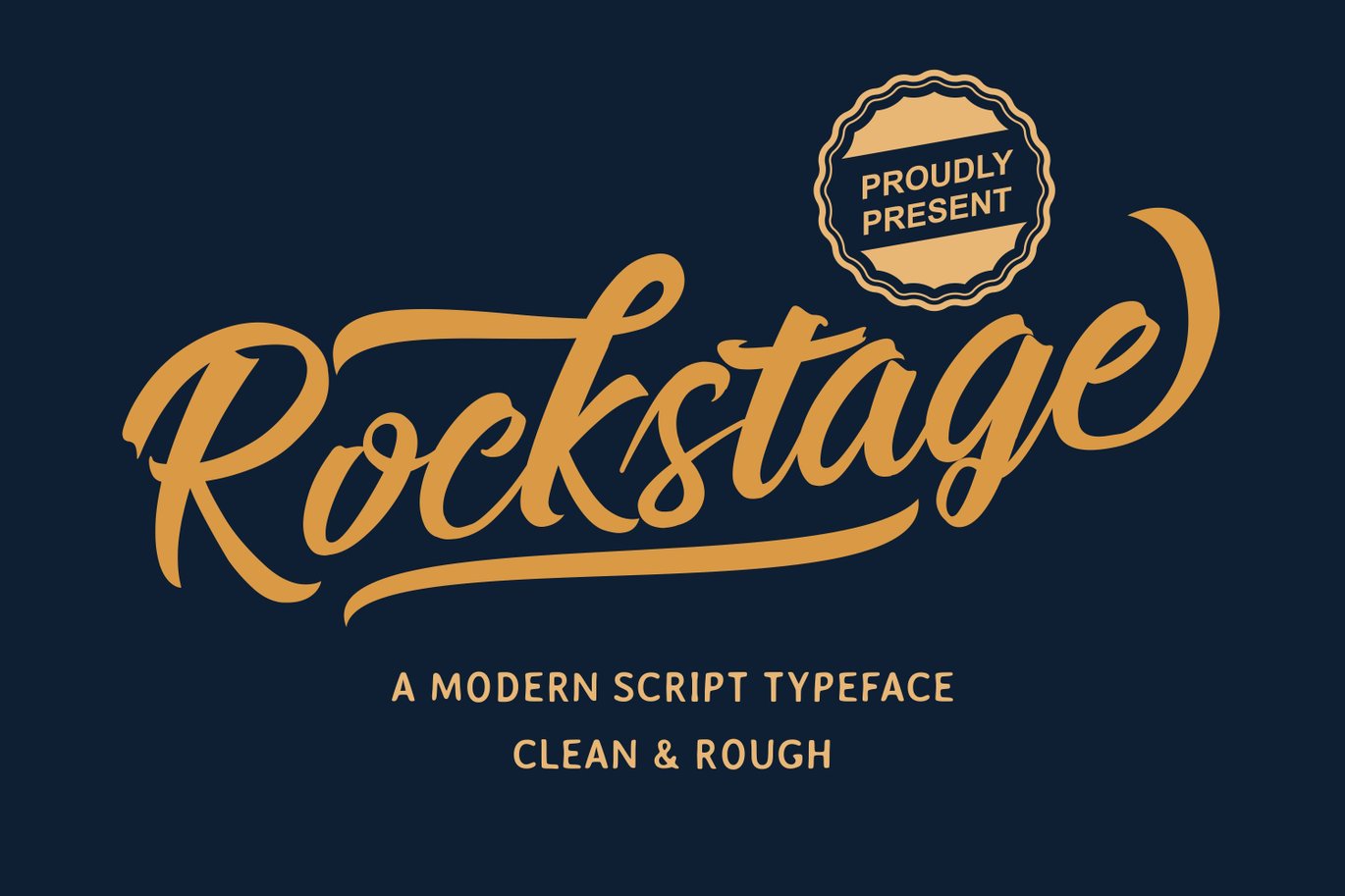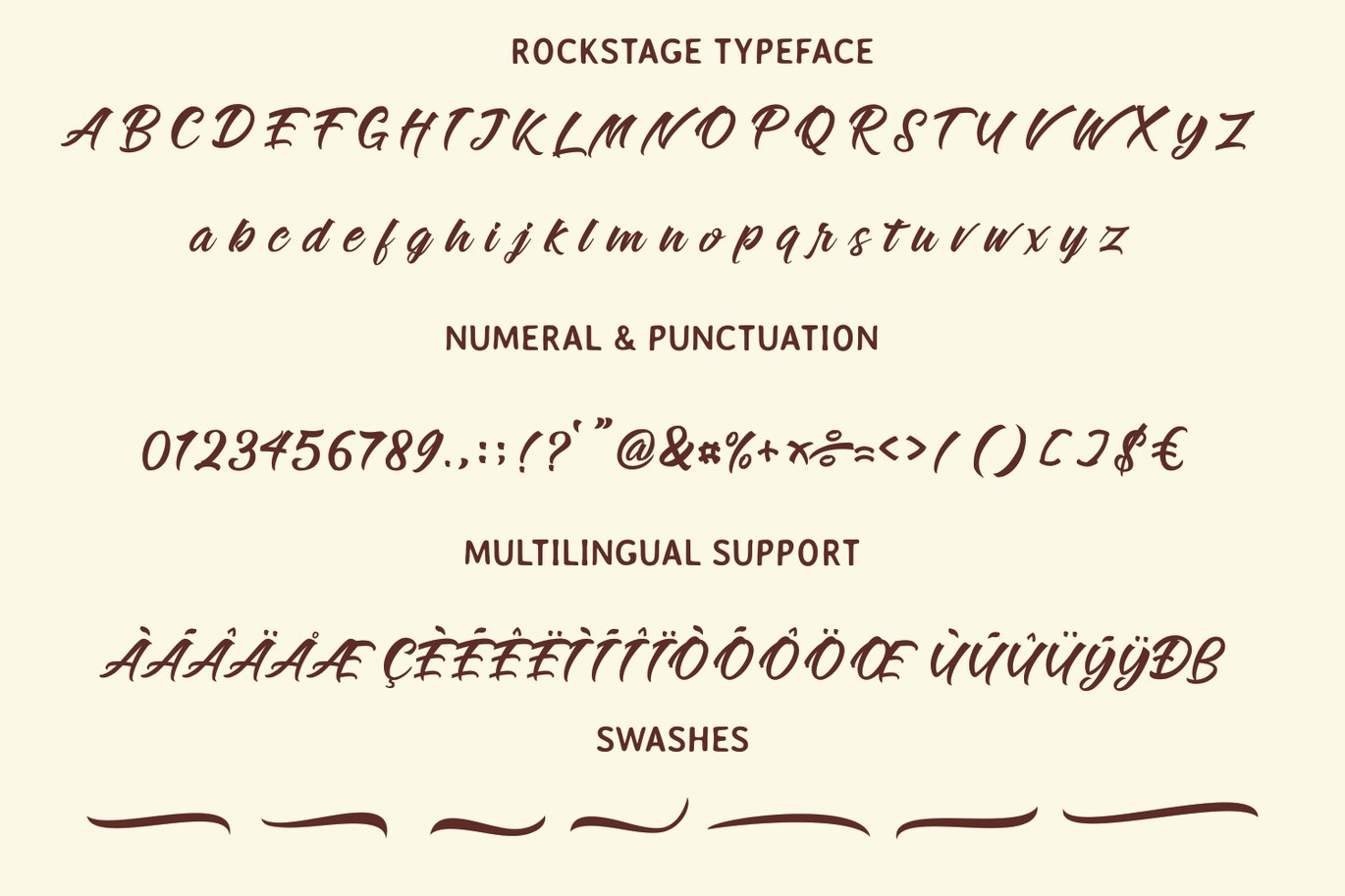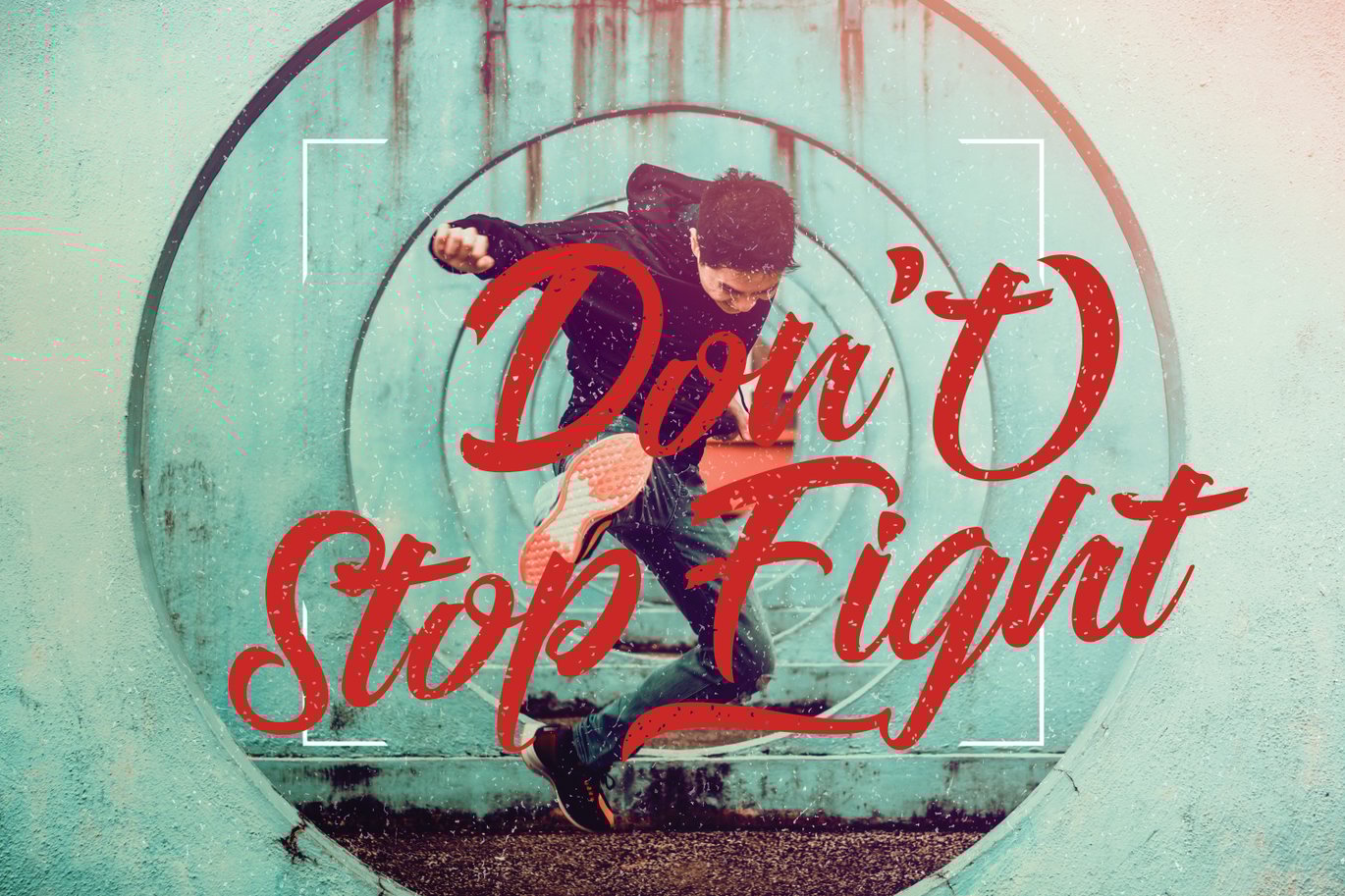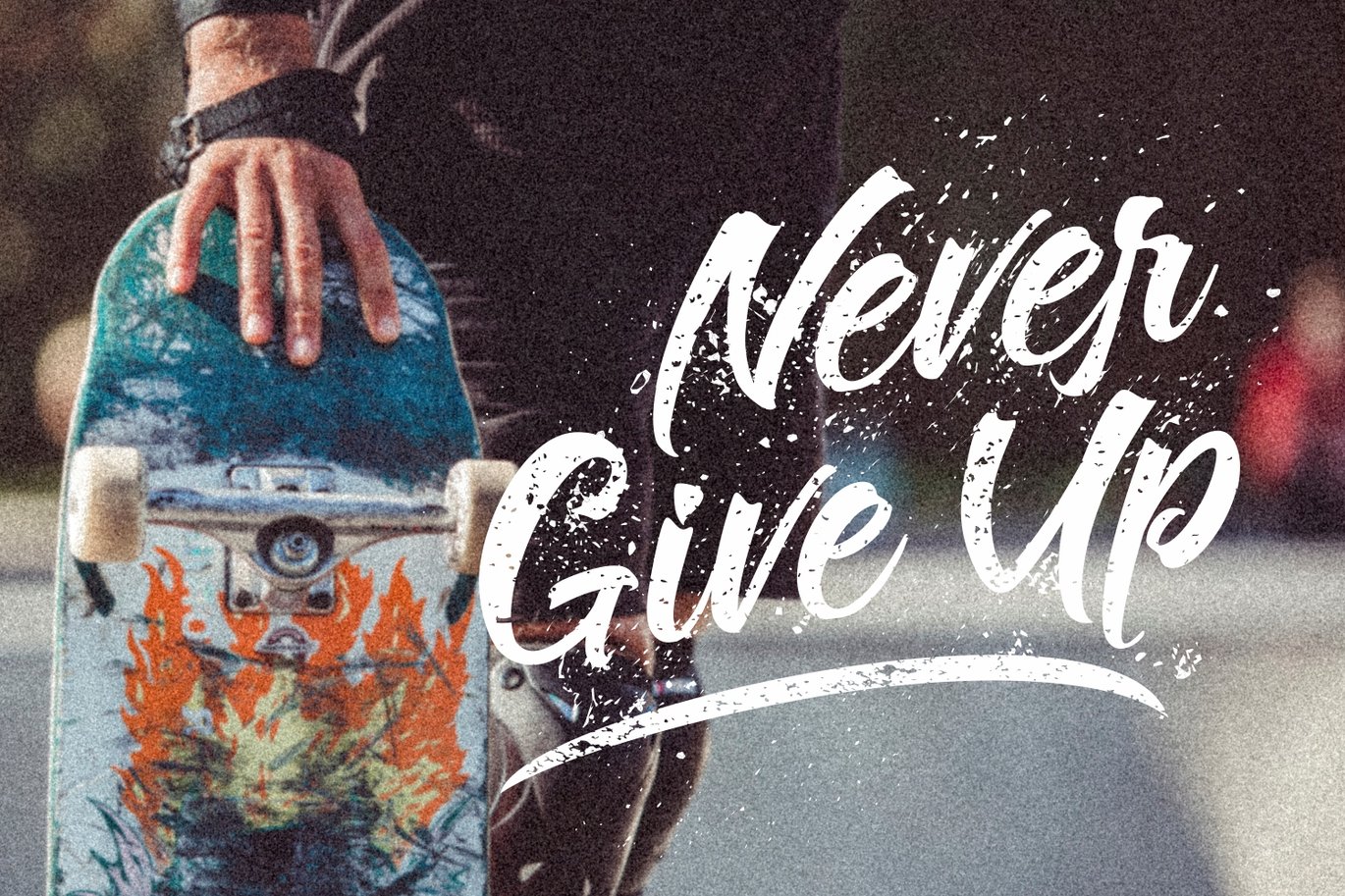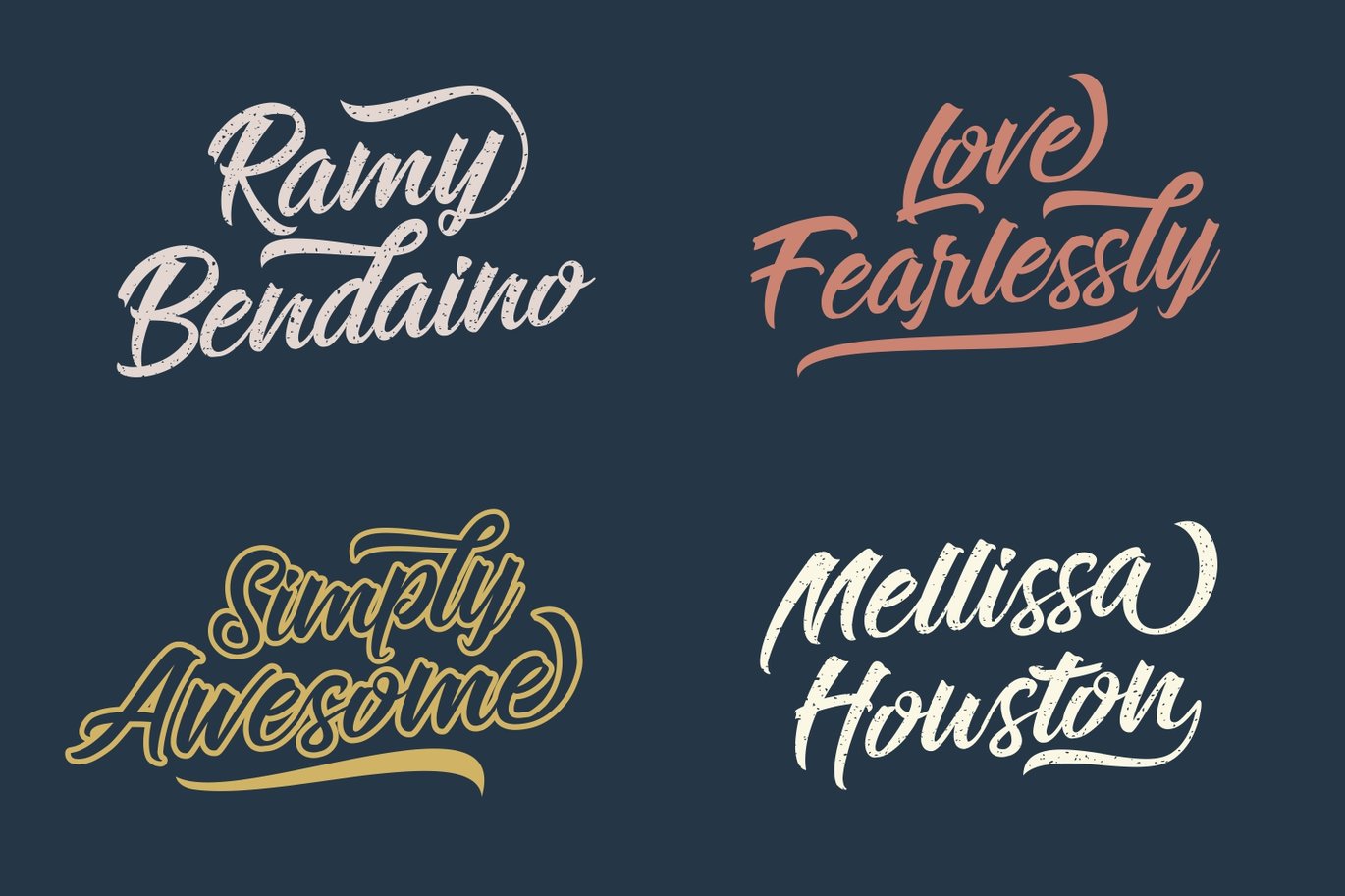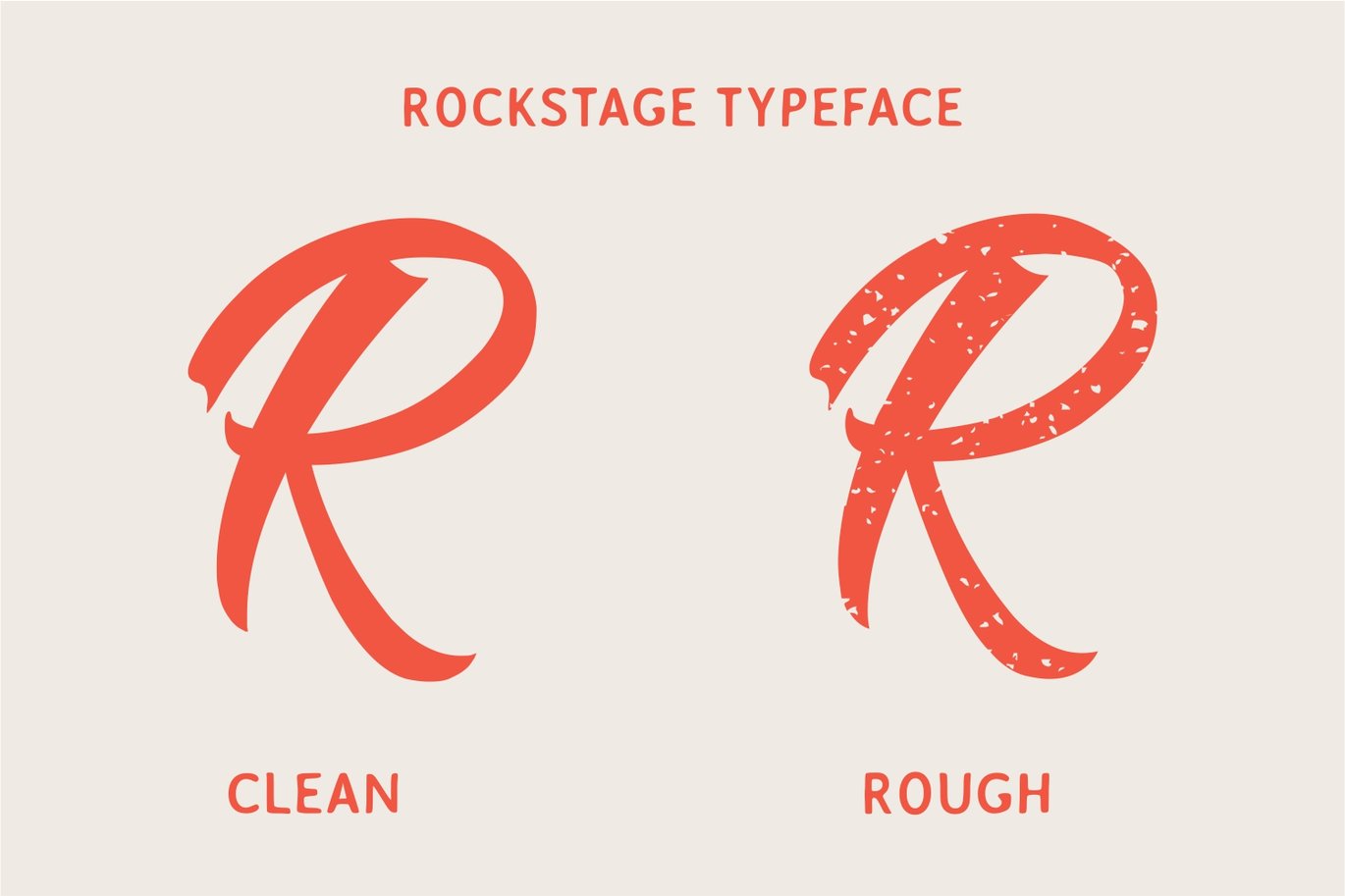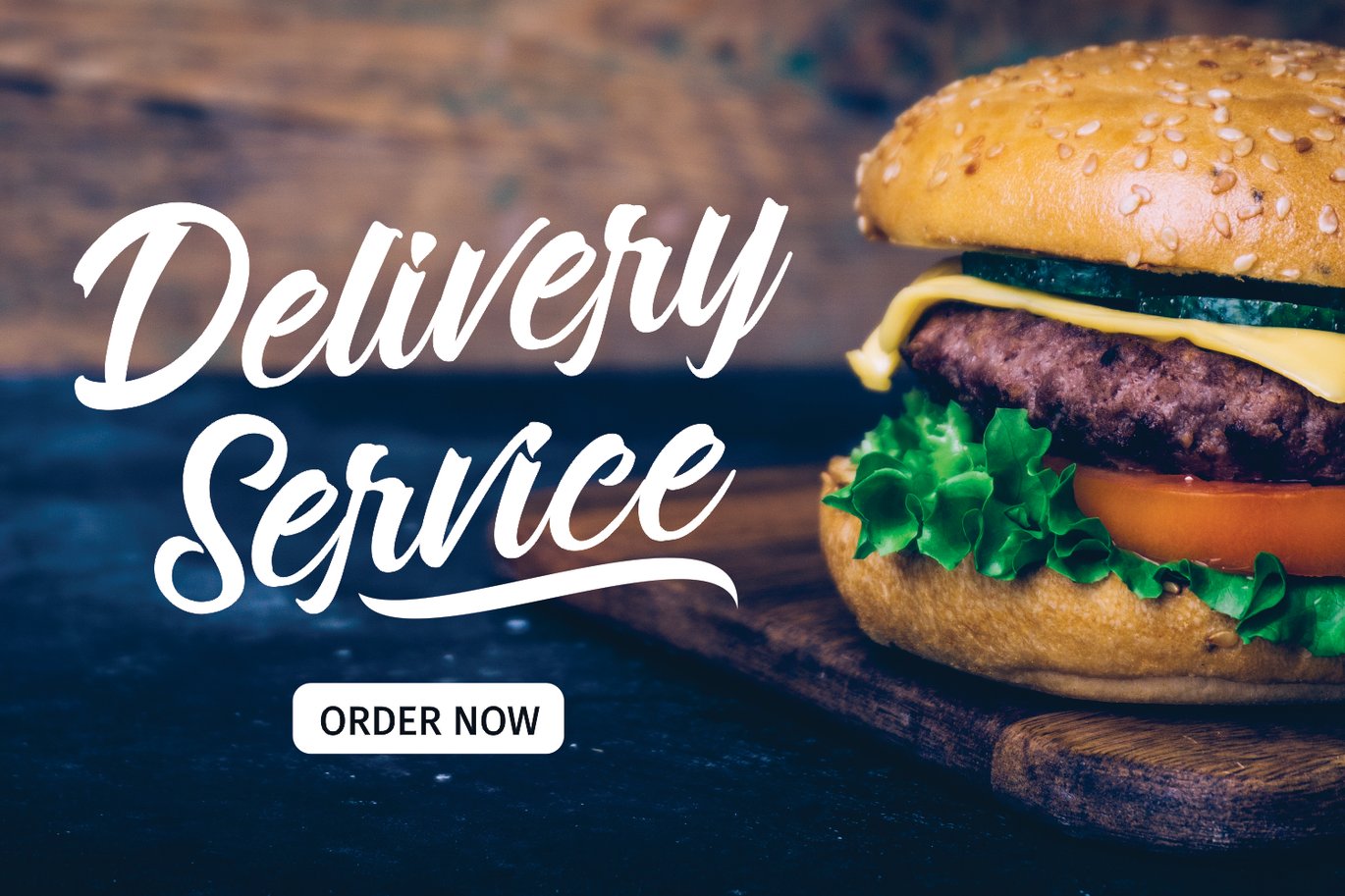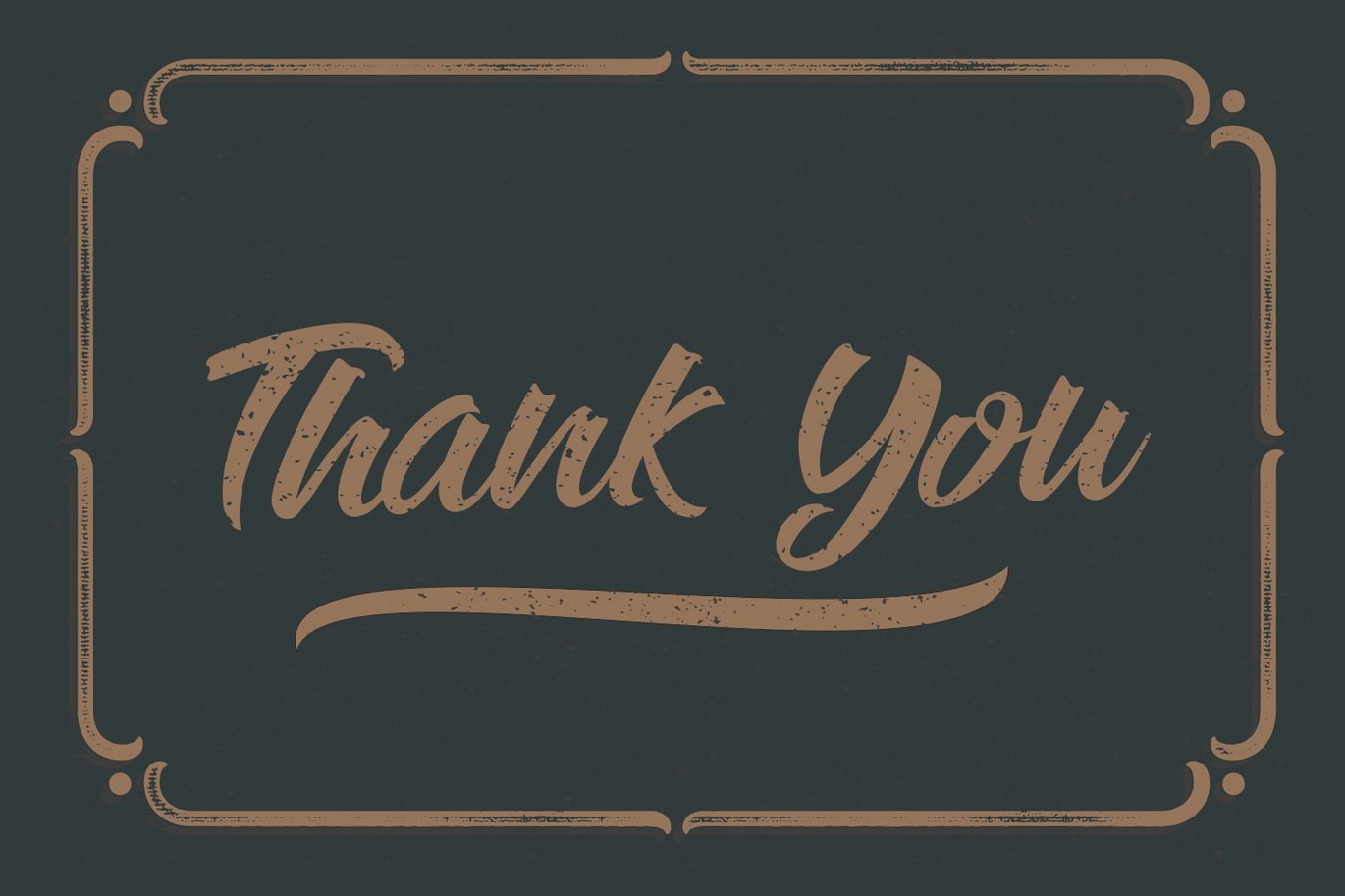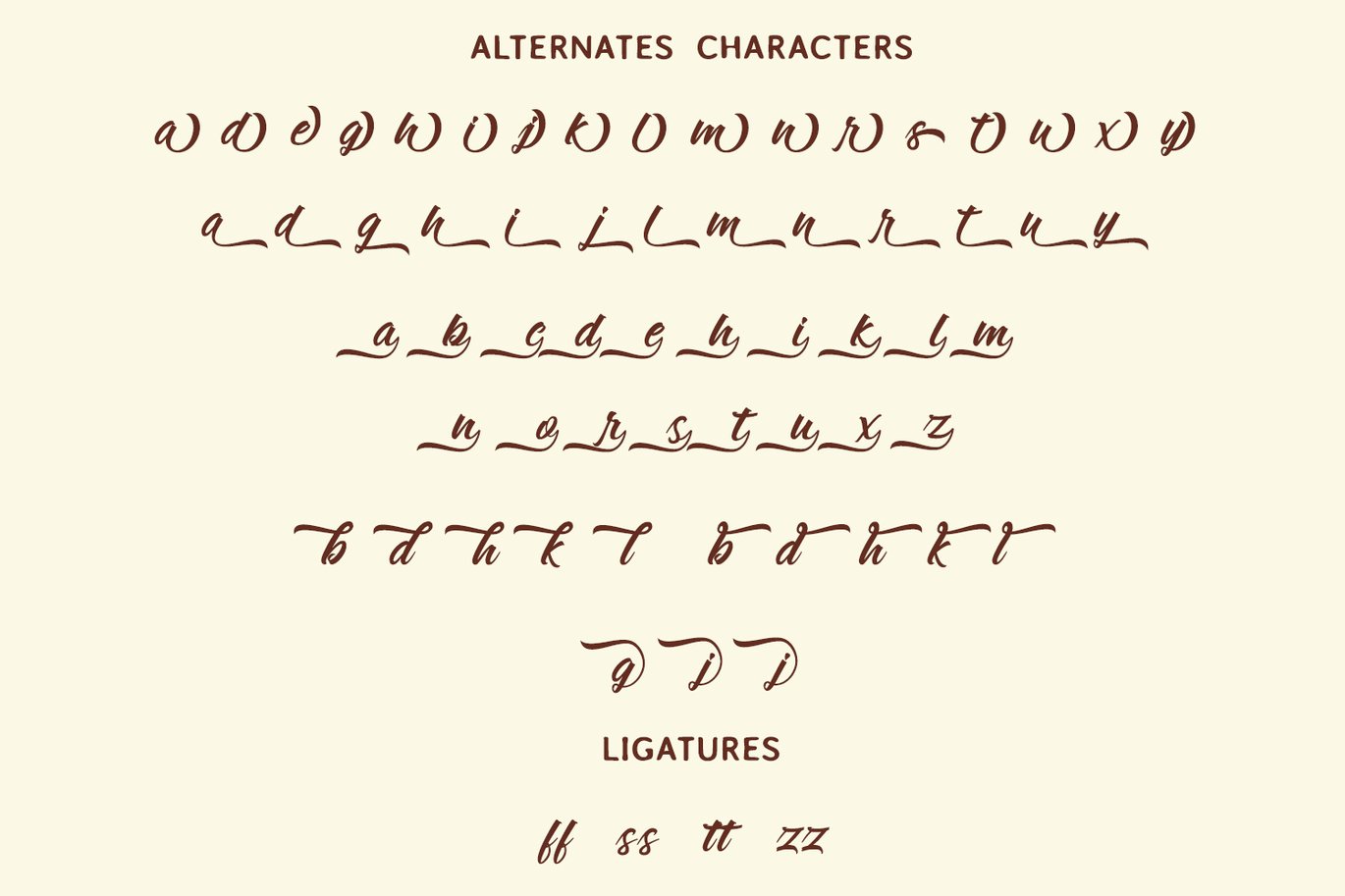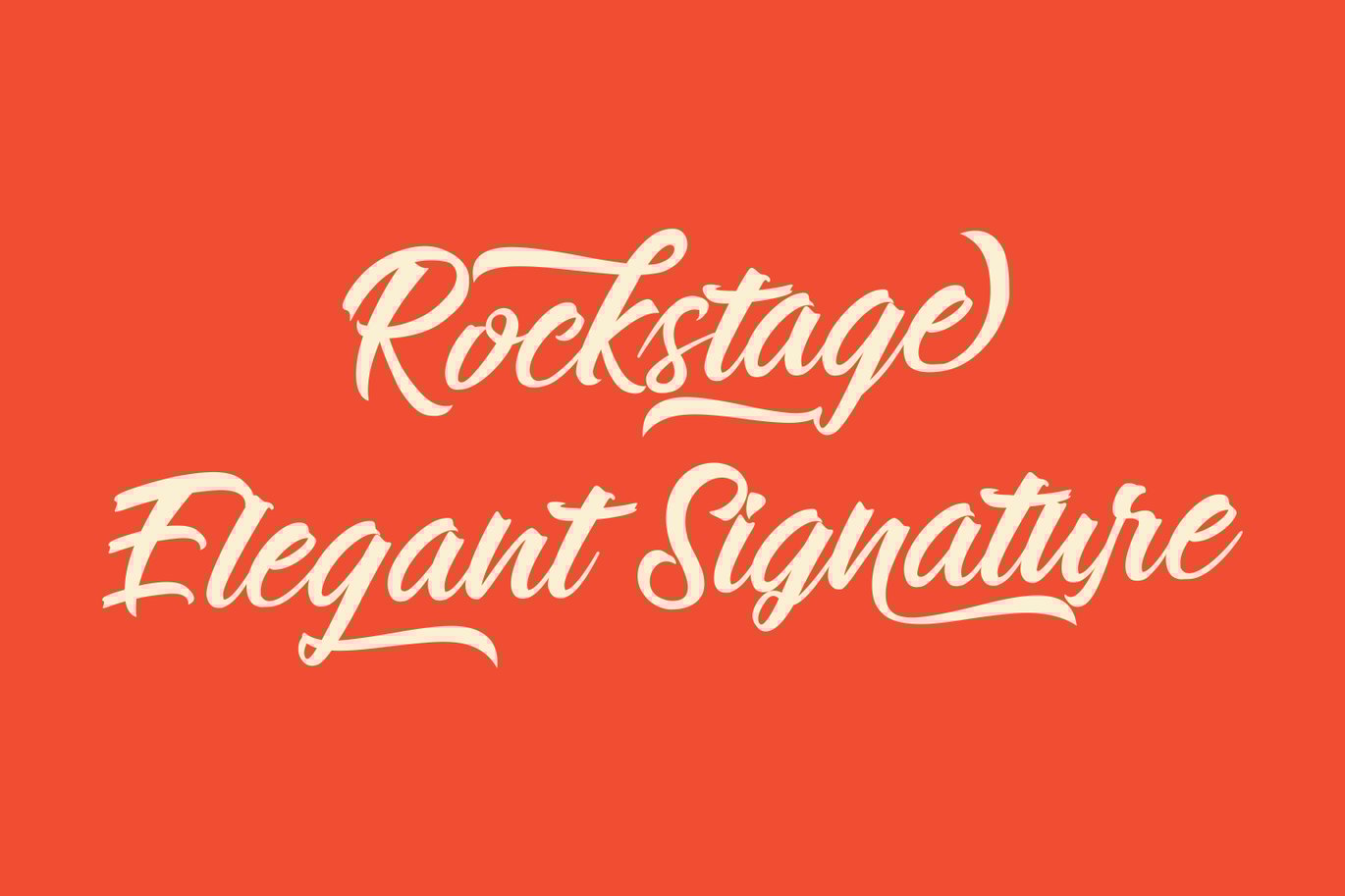
Rockstage – Retro Font
Rockstage – Vintage Font
Unleash your creativity with Rockstage, a versatile retro and vintage font that comes in two captivating styles: clean and rough. Whether you’re designing wedding invitations, thank you cards, quotes, or greeting cards, Rockstage adds a touch of elegance and nostalgia to your projects. Elevate your logos, business cards, and every other design with the unique handwritten charm of Rockstage.
Rockstage is PUA Encoded, ensuring that you can easily access and use every alternate character. This feature makes it simple to personalize your designs, adding that special touch to each letter and word. Say goodbye to limitations and hello to boundless creative possibilities with Rockstage’s rich variety of characters.